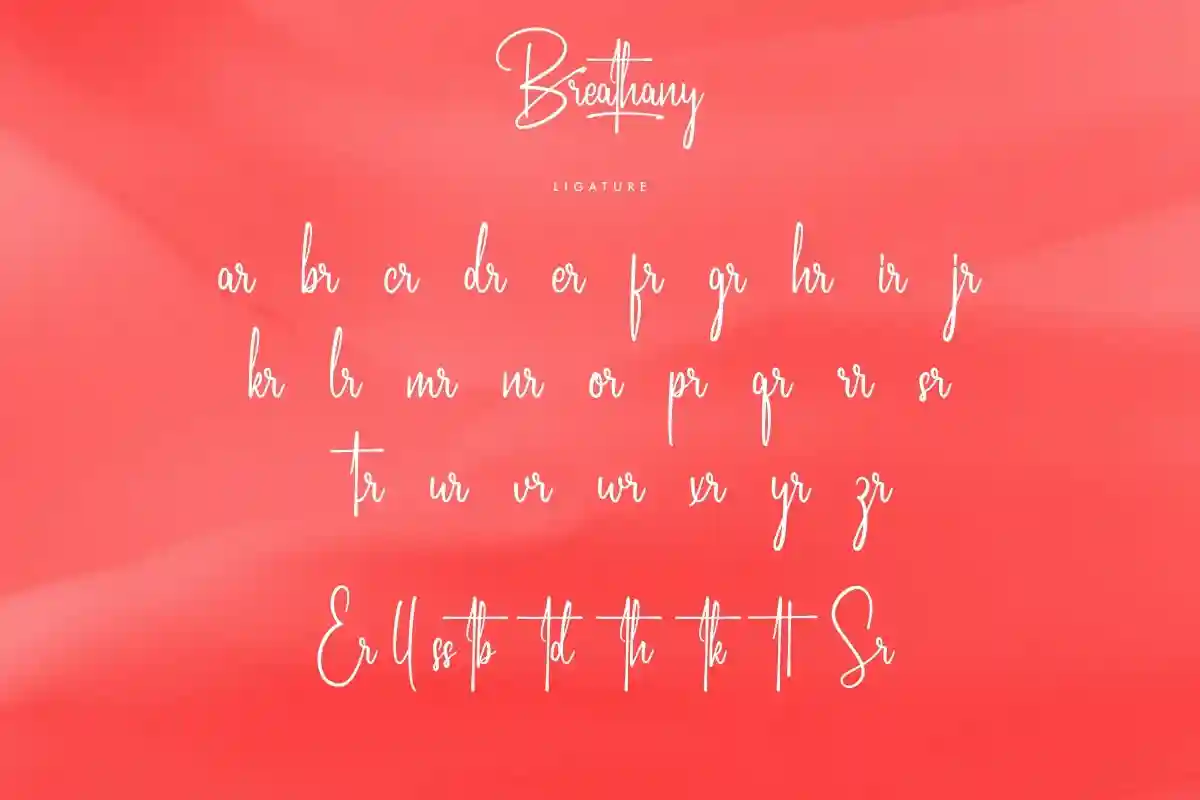
Breathany is a classic signature handwriting font with modern and elegant characters. This font is crafted carefully in every its single scratch, created to look as close to a natural handwritten script so that it can create the perfect combination on each glyph. When we make this font, we really want to create a touch that is so free-flowing that it gives a natural impression on its use later. This awesome script is for anyone who are needing of elegance and stylish for their designs.
Breathany Signature Font includes full set of Uppercase and Lowercase Basic Characters, Numerals and Punctuation. Also it contains ligatures and alternates characters to perfectly make natural handwriting look that add more beautiful and aesthetic fonts to perfect your extraordinary project. Breathany Font will be awesome for professional, photography, wedding, engagement, branding, invitations, florist, hair stylish, makeup artist, event organizer, movie, music, festival, promotions, social media etc
Modern and elegant: Perfect for upscale branding.
Natural handwriting feel: Looks like a real signature.
Multilingual support: Covers a wide range of languages.
Breathany Font will be great for photo logo, professional, branding, logotype, social media post, poster, invitation, watermark, lettering and many more